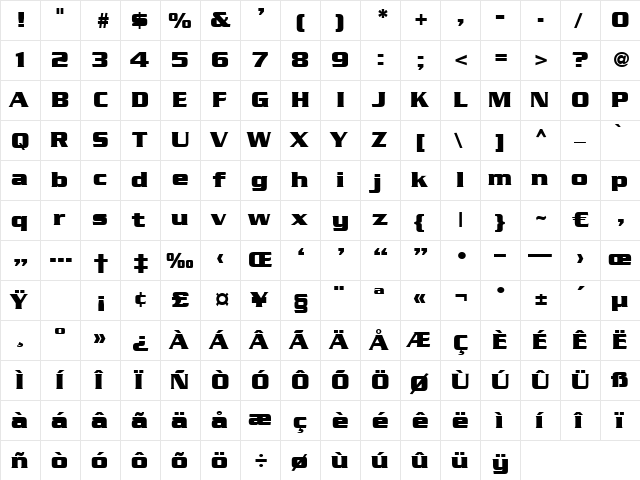
Stockholm Regular
Design Context for Stockholm Typeface
Stockholm takes a measured approach to typography — its balanced proportions and neutral character make it a reliable workhorse for both digital and print work.